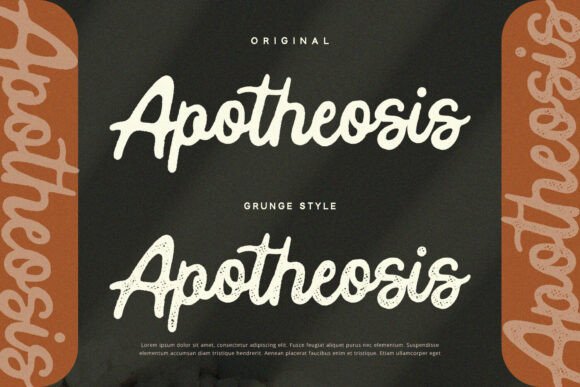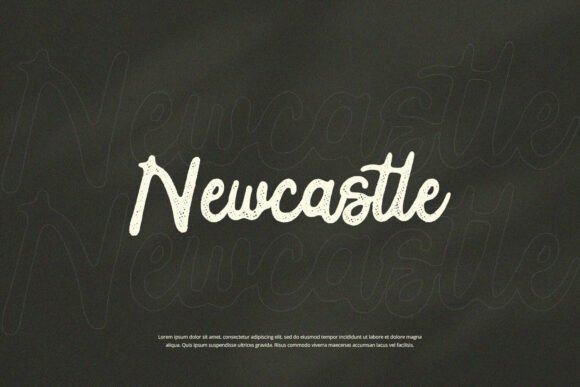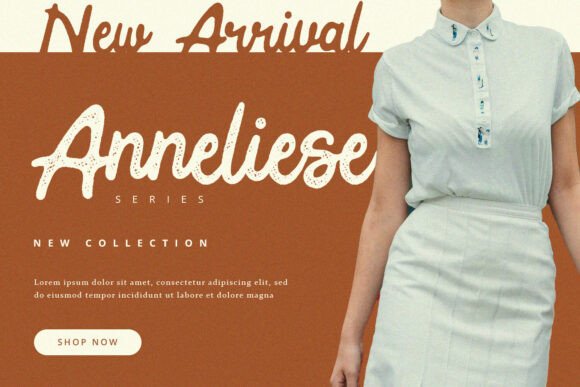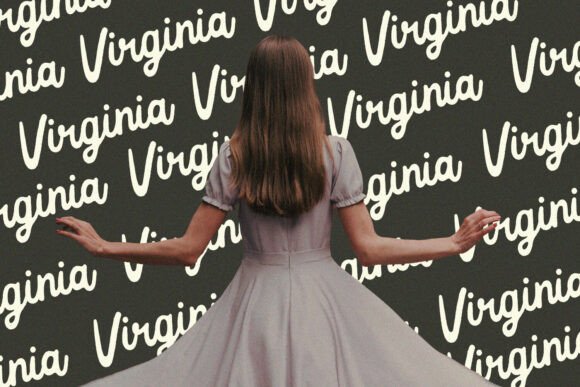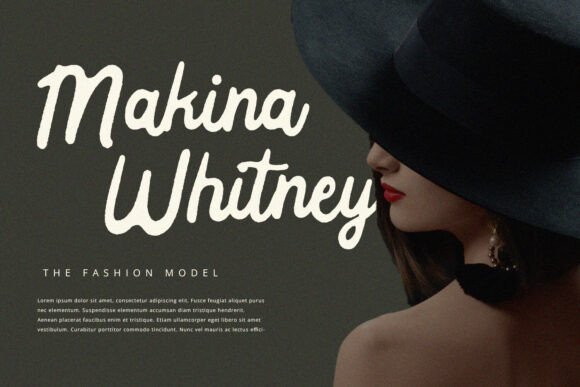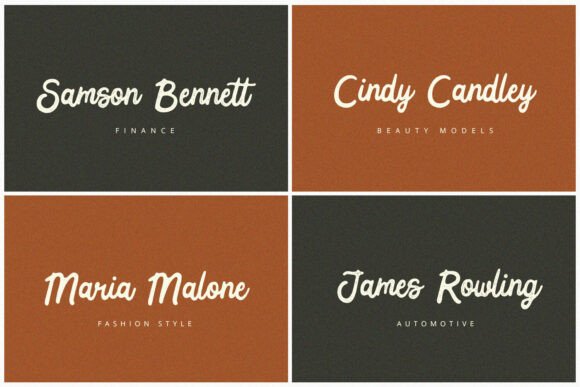
Introducing Apotheosis Font: Elevate Your Designs with a Touch of Classic Elegance
In the world of typography, fonts play a crucial role in conveying the tone and personality of a design. For designers and crafters seeking a unique and classic feel, Apotheosis Font is an exceptional choice. This rough script font is designed to add a touch of sophistication and elegance to various design projects, making it perfect for a wide range of applications.
What is Apotheosis Font?
Apotheosis Font is a distinctive rough script font that boasts a unique and classic feel. Its irregular strokes and subtle imperfections give it a handcrafted look, reminiscent of traditional calligraphy. The font’s design is characterized by its elegant letterforms, refined lines, and a hint of vintage charm.
Key Features of Apotheosis Font
- Unique and Classic Feel: Apotheosis Font’s distinctive design sets it apart from other fonts, making it an excellent choice for designers seeking a classic yet unconventional look.
- Rough Script Style: The font’s rough script style adds a touch of elegance and sophistication to any design.
- Highly Versatile: Apotheosis Font can be used for a wide range of design projects, from magazines and packaging to posters, shopping bags, and more.
- Easily Readable: Despite its ornate appearance, Apotheosis Font remains highly readable, making it suitable for both headlines and body text.
Apotheosis Font’s versatility makes it an excellent choice for various design projects, including:
- Magazines: Add a touch of elegance to your magazine’s title pages, headers, and articles with Apotheosis Font.
- Packaging: Elevate your brand’s packaging design with Apotheosis Font’s unique and classic feel.
- Posters: Create eye-catching posters for events, promotions, or advertisements with Apotheosis Font.
- Shopping Bags: Add a touch of sophistication to your brand’s shopping bags with Apotheosis Font.
- T-Shirts: Design stylish and elegant t-shirts with Apotheosis Font.
- Book Covers: Create captivating book covers with Apotheosis Font, perfect for fiction, non-fiction, and poetry books.
- Photography: Use Apotheosis Font to add a touch of elegance to your photography projects, such as photo albums, portfolios, or social media graphics.
- Special Events: Make your special events, such as weddings, galas, or conferences, more memorable with Apotheosis Font.
Why Choose Apotheosis Font?
With so many fonts available, why choose Apotheosis Font? Here are a few reasons:
- Unique Design: Apotheosis Font’s distinctive design ensures that your projects stand out from the crowd.
- High-Quality: The font is crafted with attention to detail, ensuring a high-quality design that reflects your brand’s professionalism.
- Versatile: The font’s versatility makes it suitable for a wide range of design projects.
Apotheosis Font is an exceptional choice for designers and crafters seeking a unique and classic feel for their design projects. Its rough script style, elegant letterforms, and highly versatile nature make it perfect for a wide range of applications. Whether you’re working on a magazine, packaging, poster, or special event, Apotheosis Font is sure to elevate your designs and leave a lasting impression.